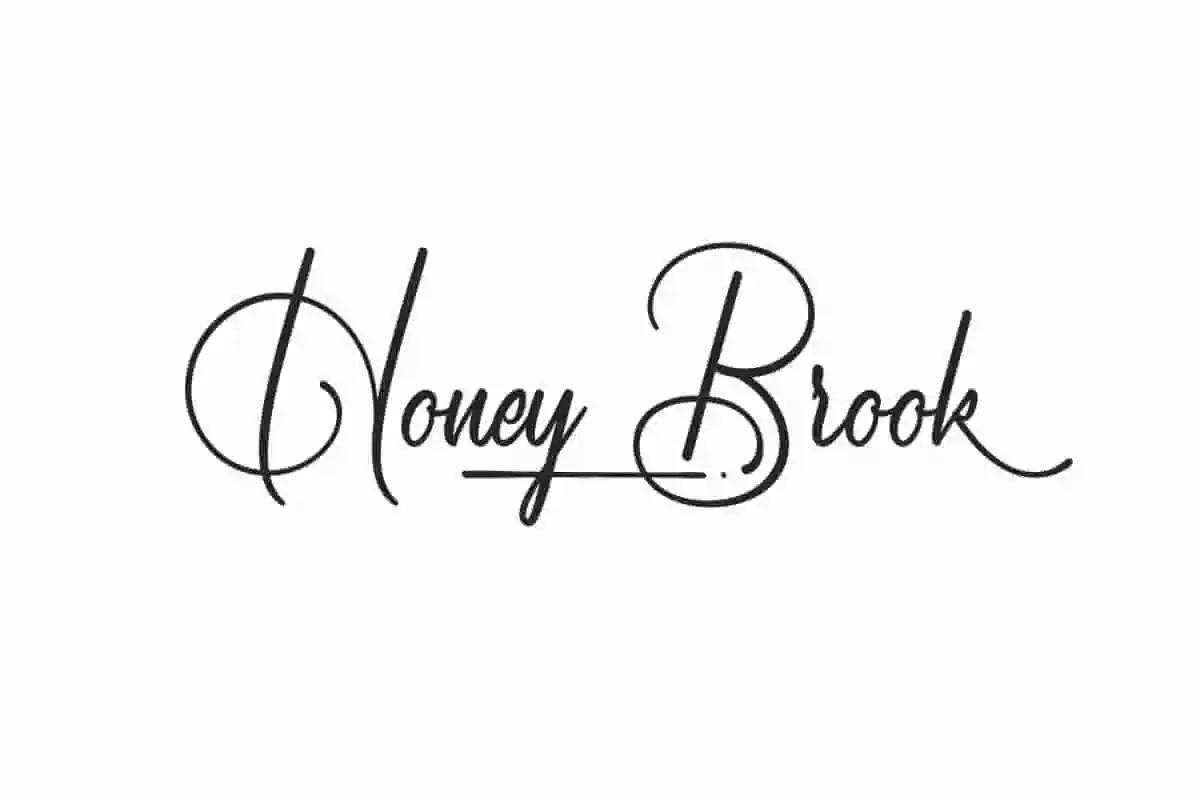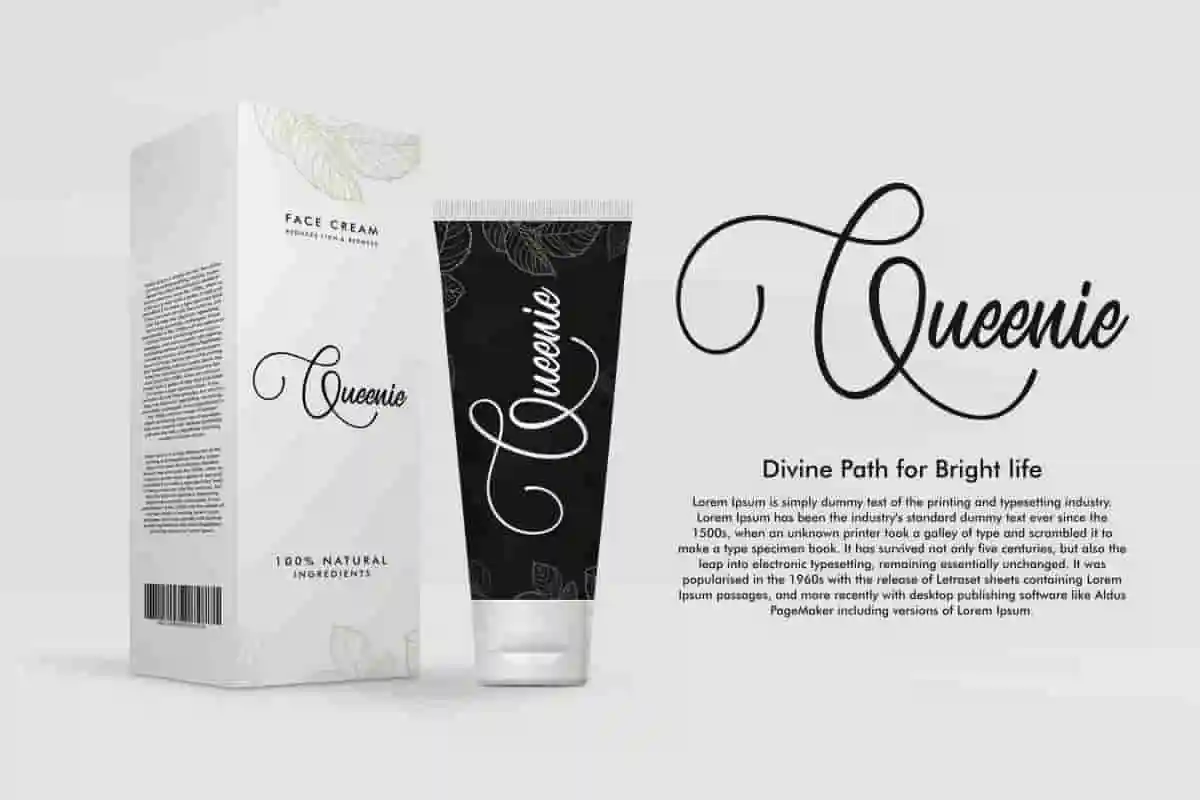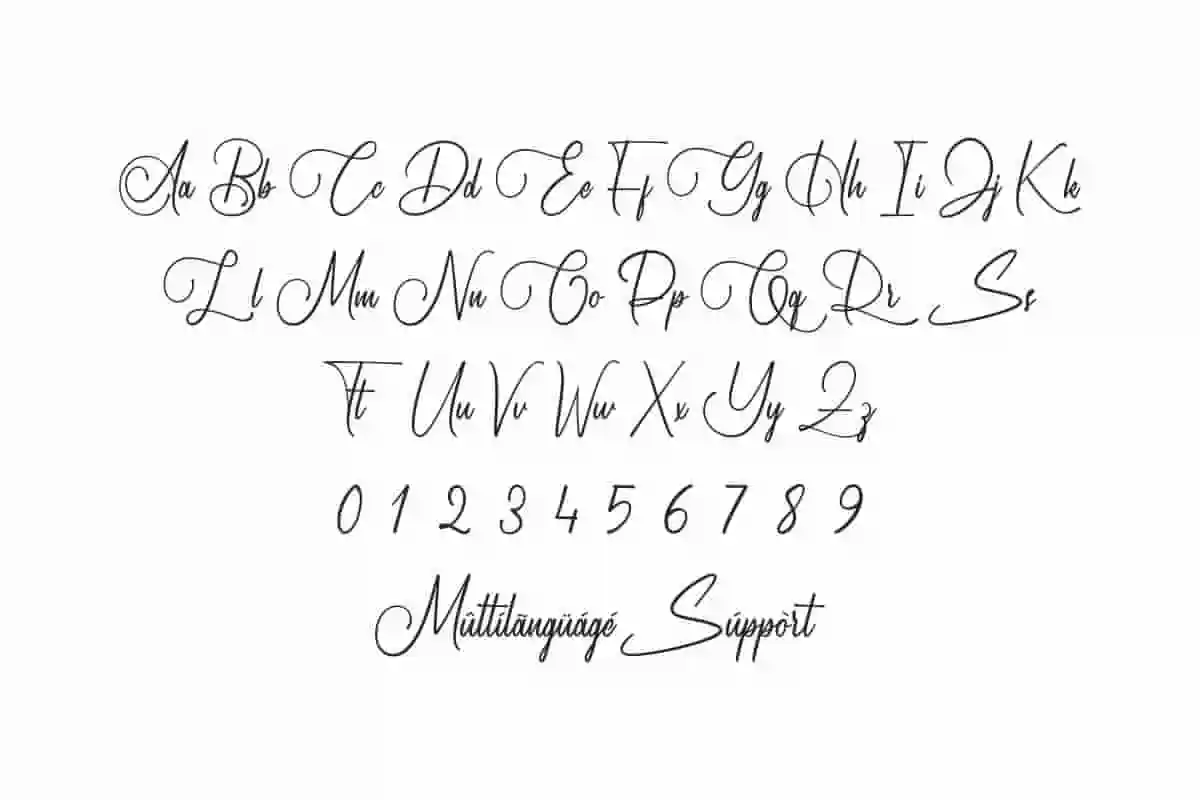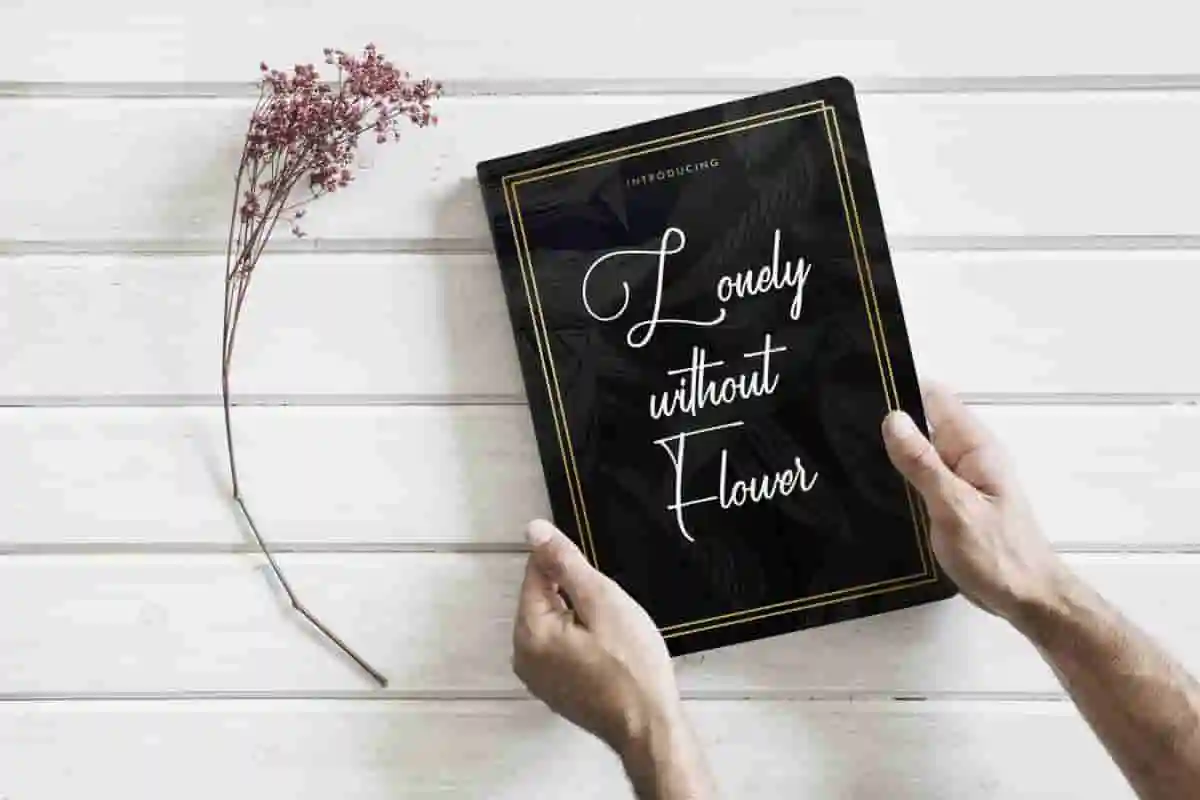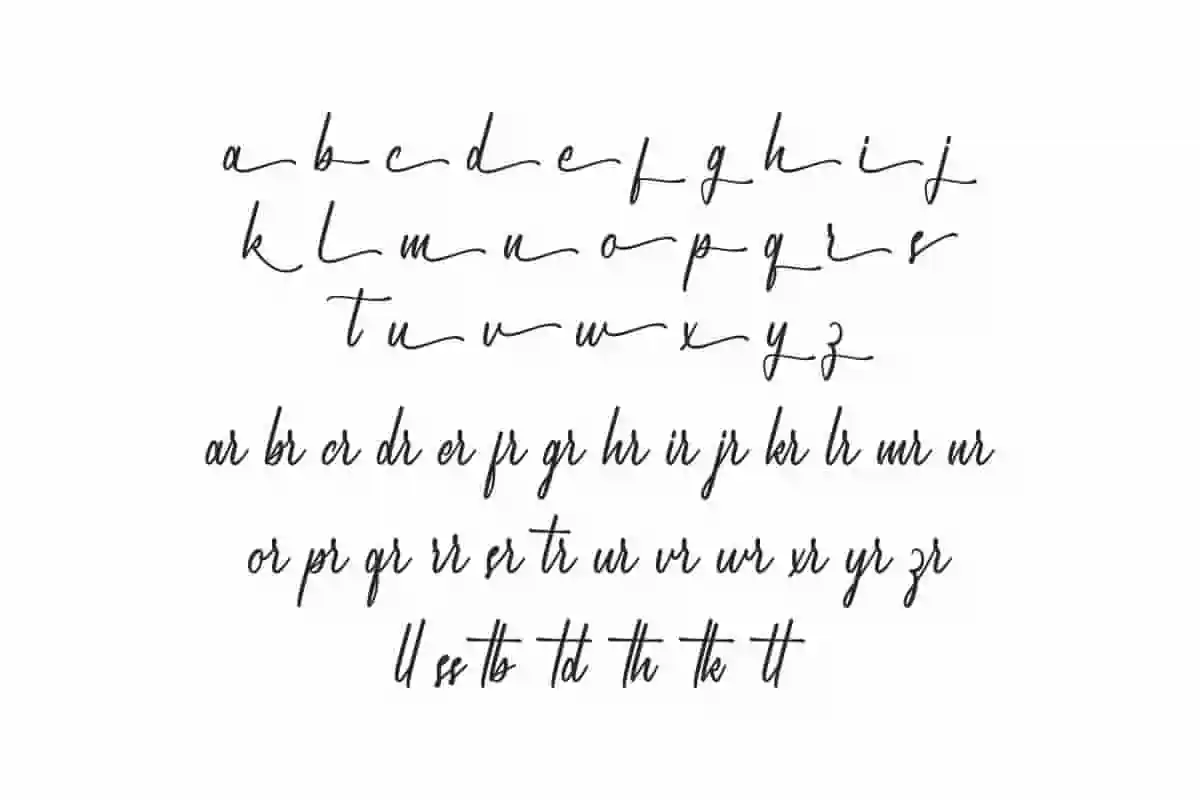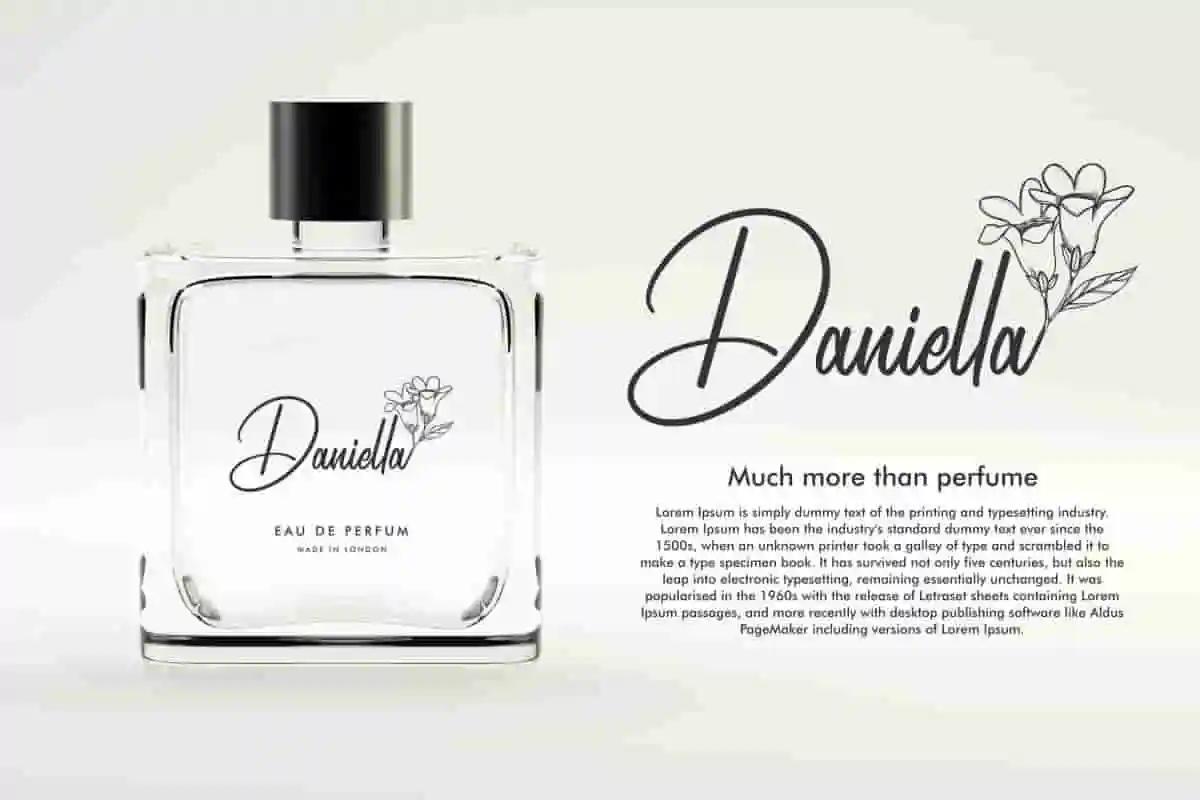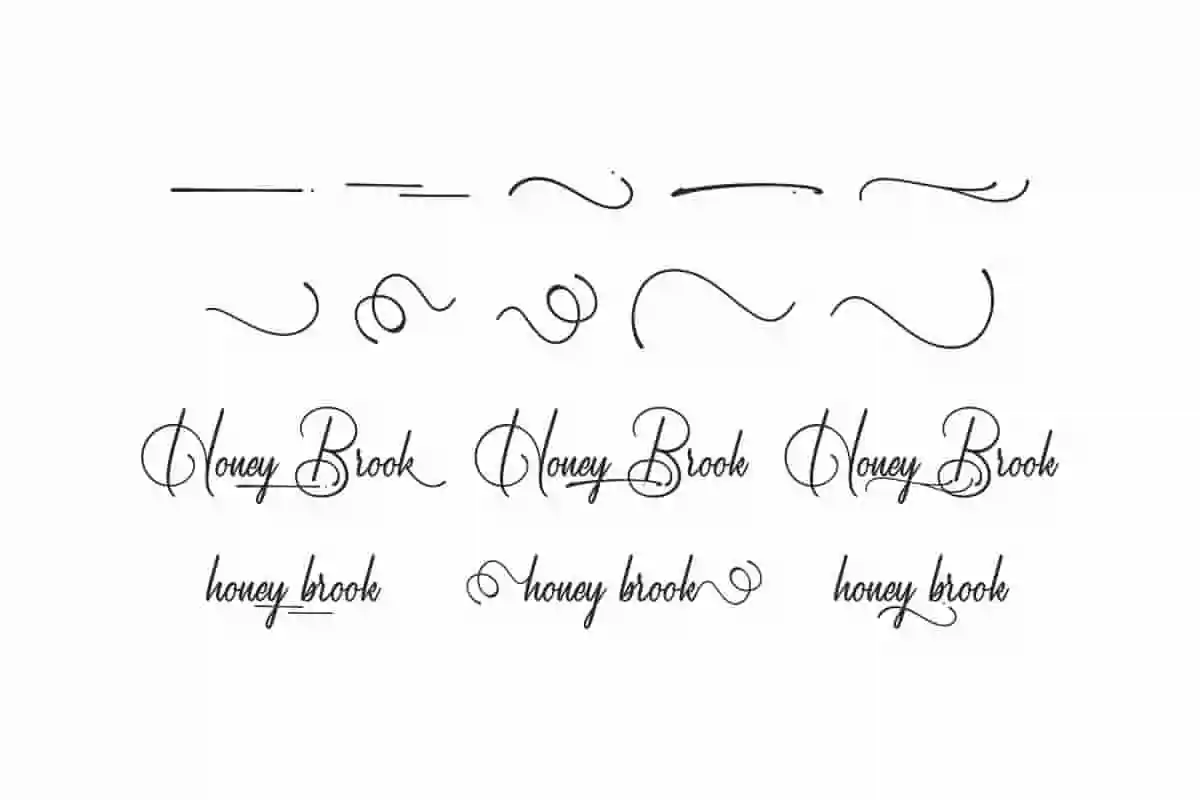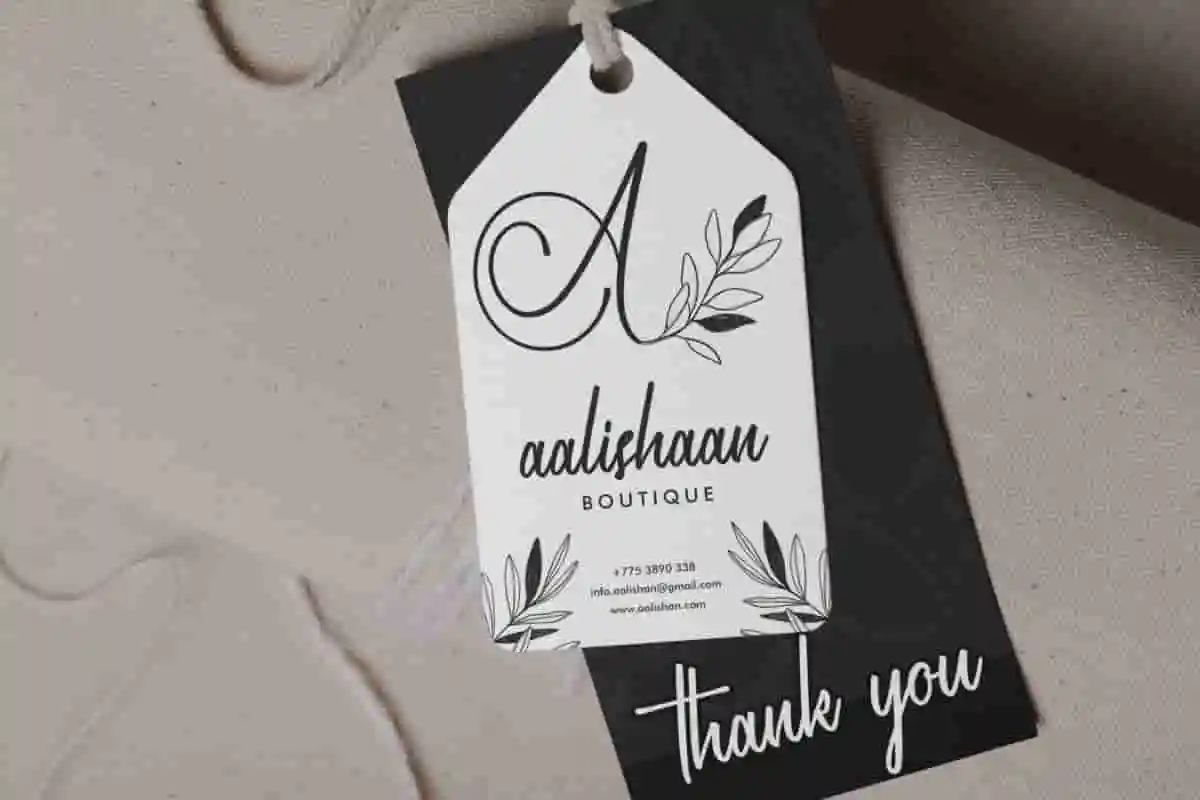
Honey Brook Font is a beautiful handwriting signature font by NihStudio. Honey Brook Font was Made for business, professional, video, photography etc
Honey Brook Font is a classic signature script font. It was made in Indonesia 2020 by Our Font Designer : Widi and Suci.
Honey Brook signature font will be awesome for many projects (some require extended license) including : branding, logo, stationery, business card, signage, flyer, brochure etc. The theme style of the font is elegant, handmade, old, casual, vintage, stylish, sophisticated and classic brush style. The font will be match for this typeface: wedding, events, real estate, architect, law firm, florist, gardening, makeup artist, travel, hotel, musician etc